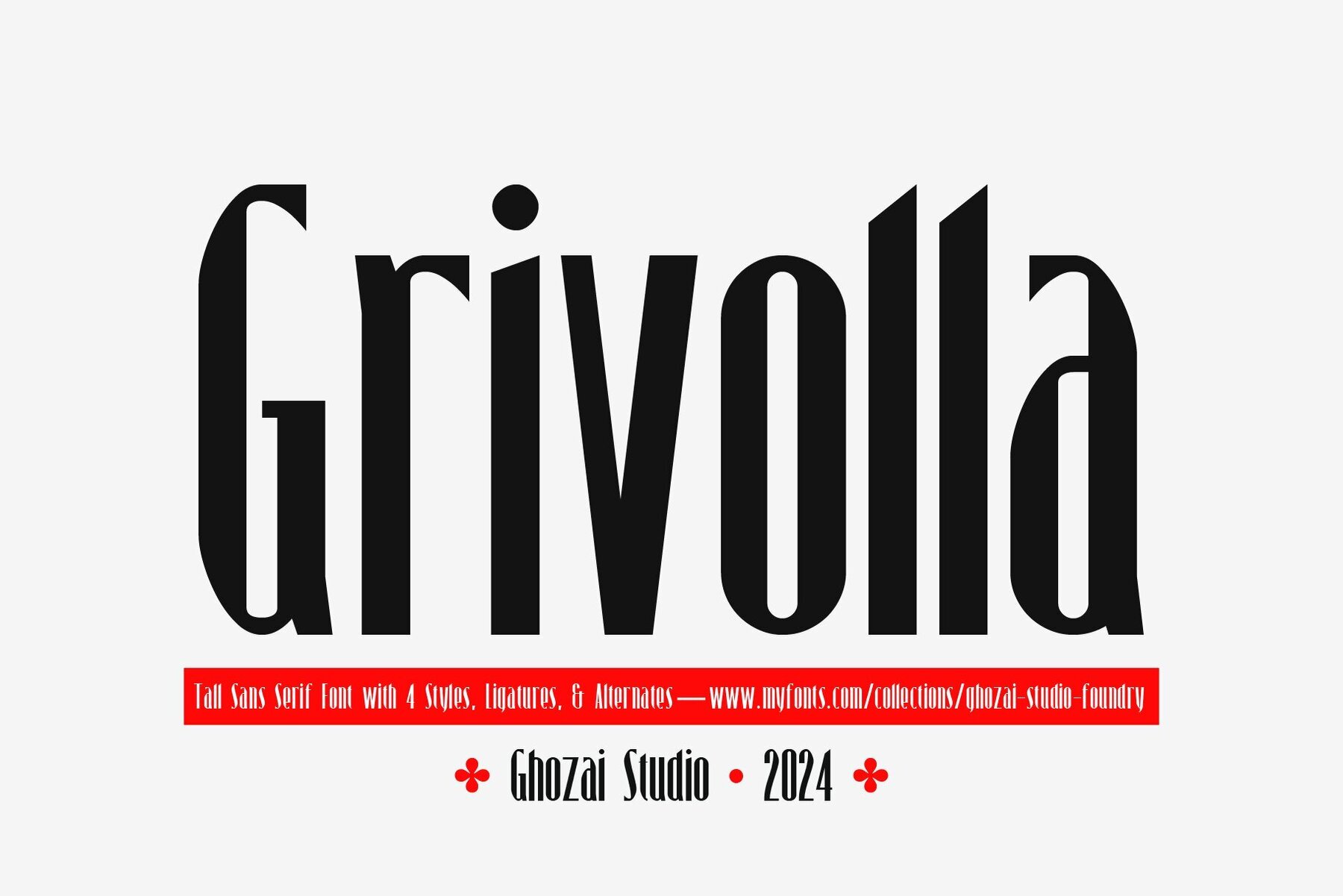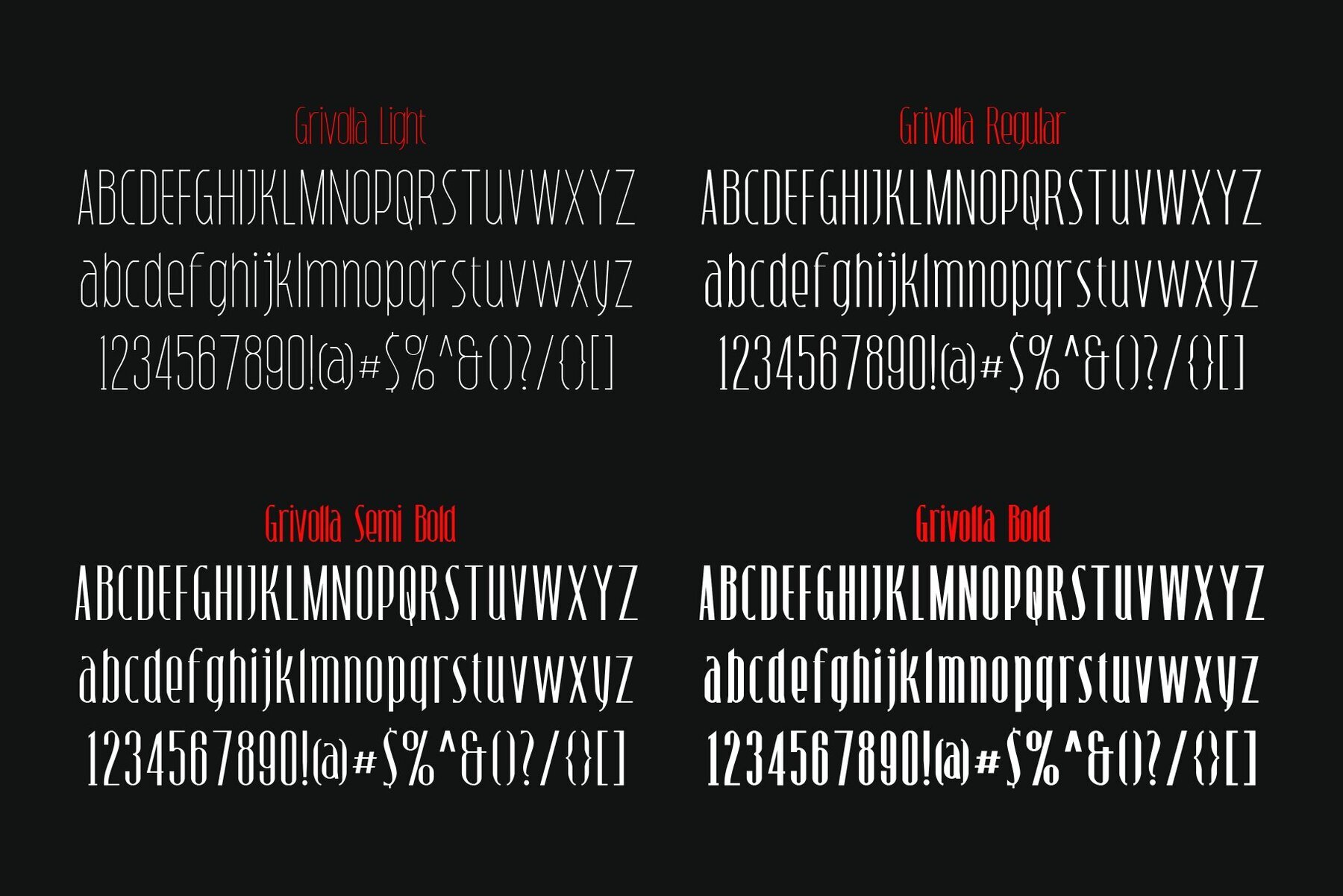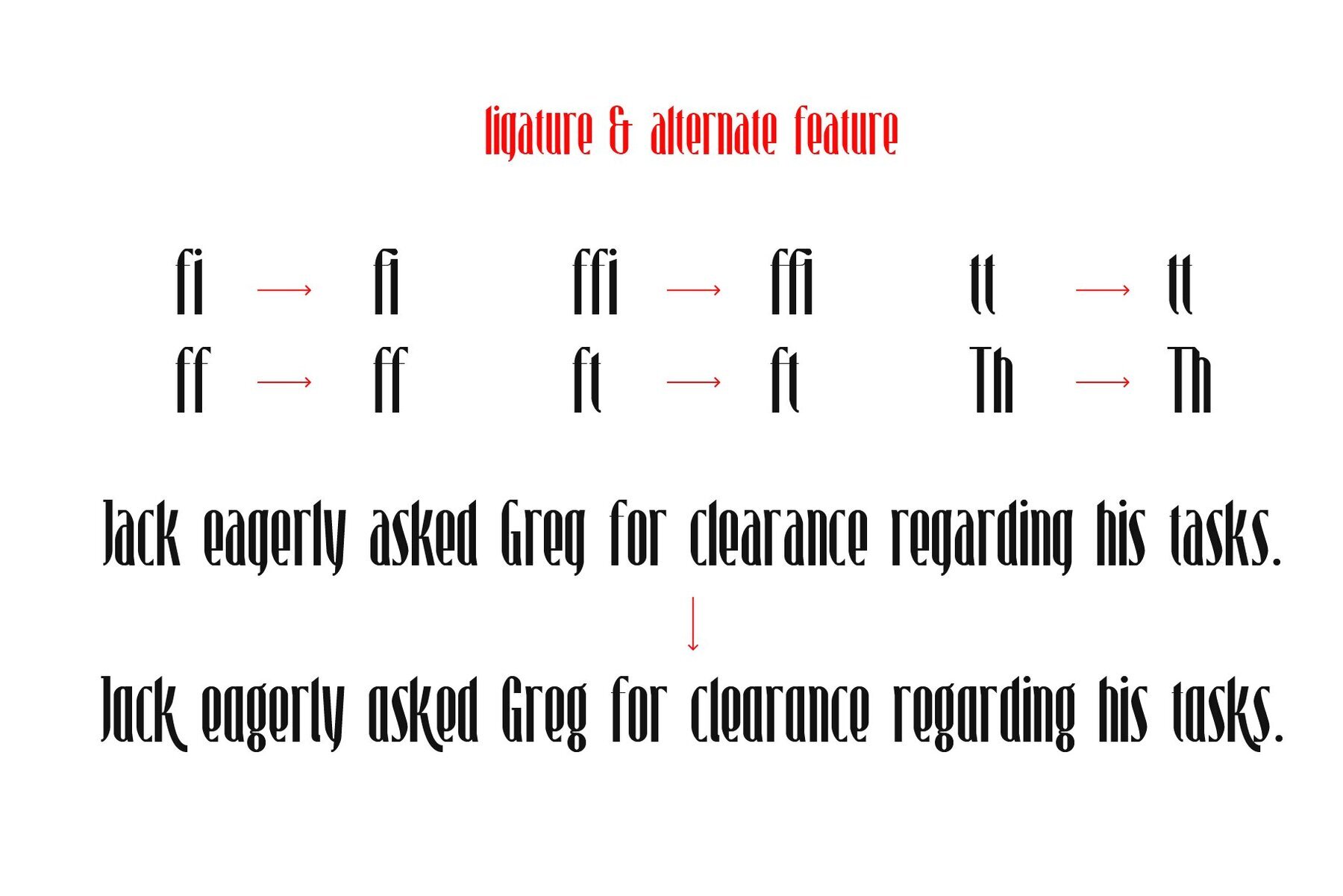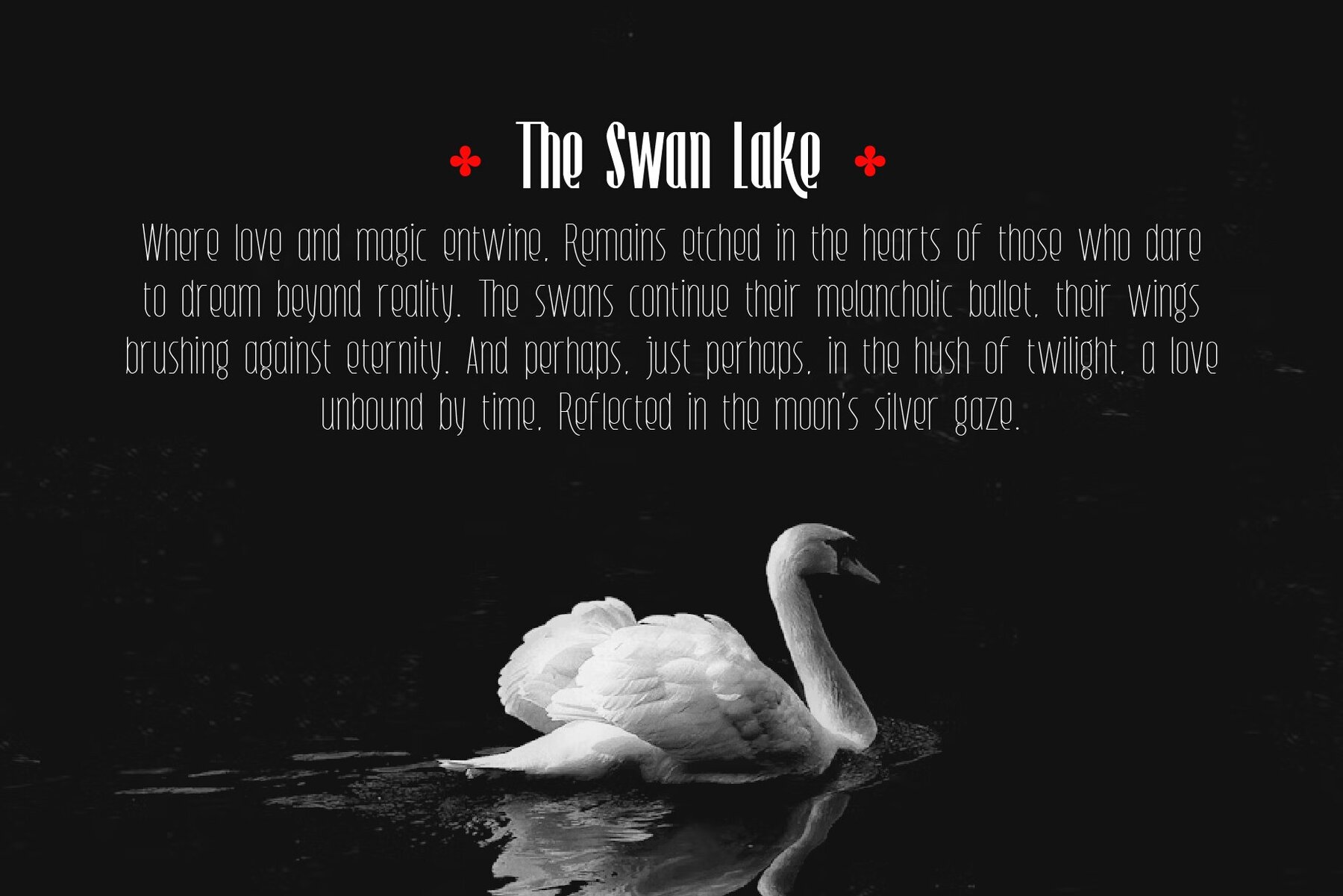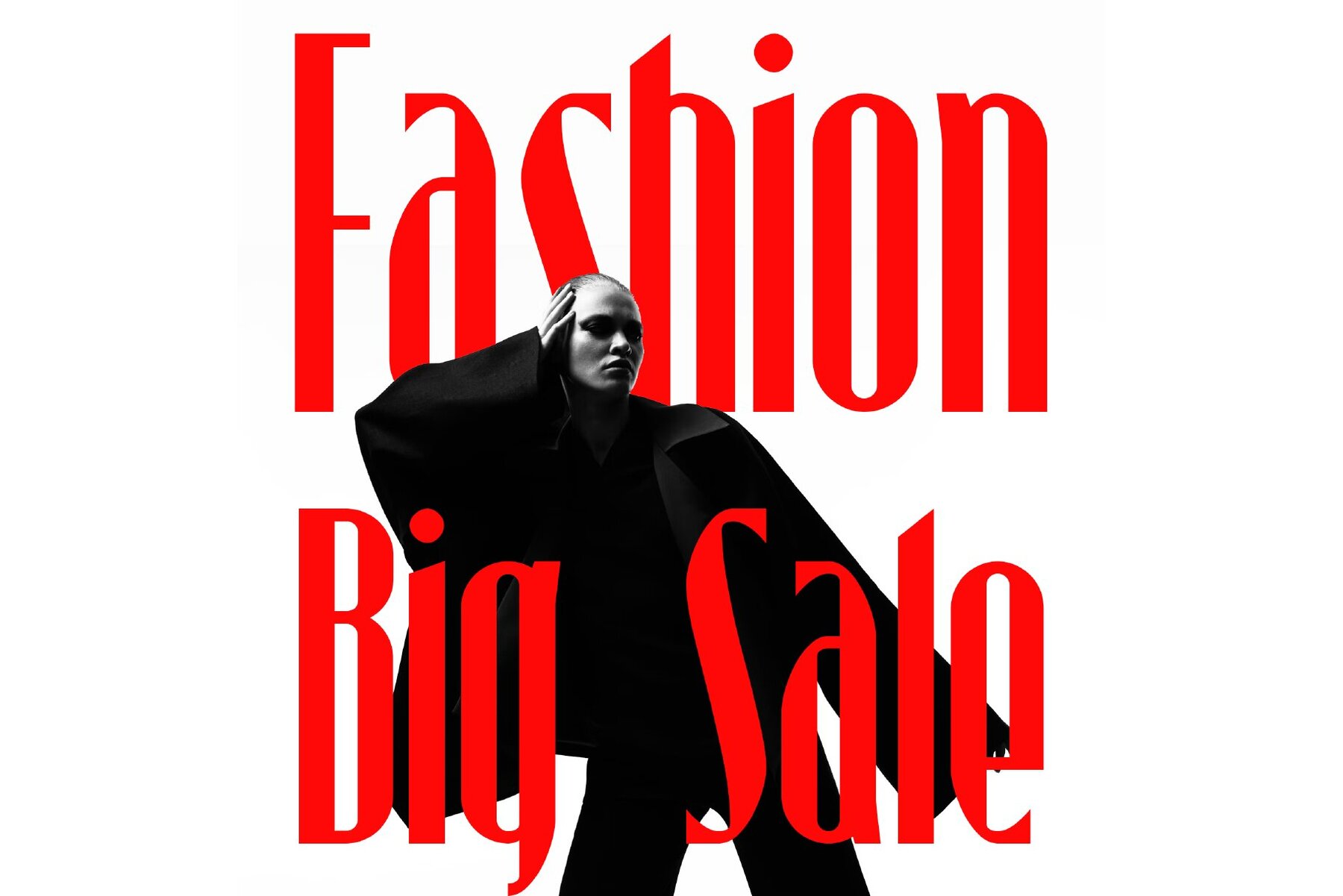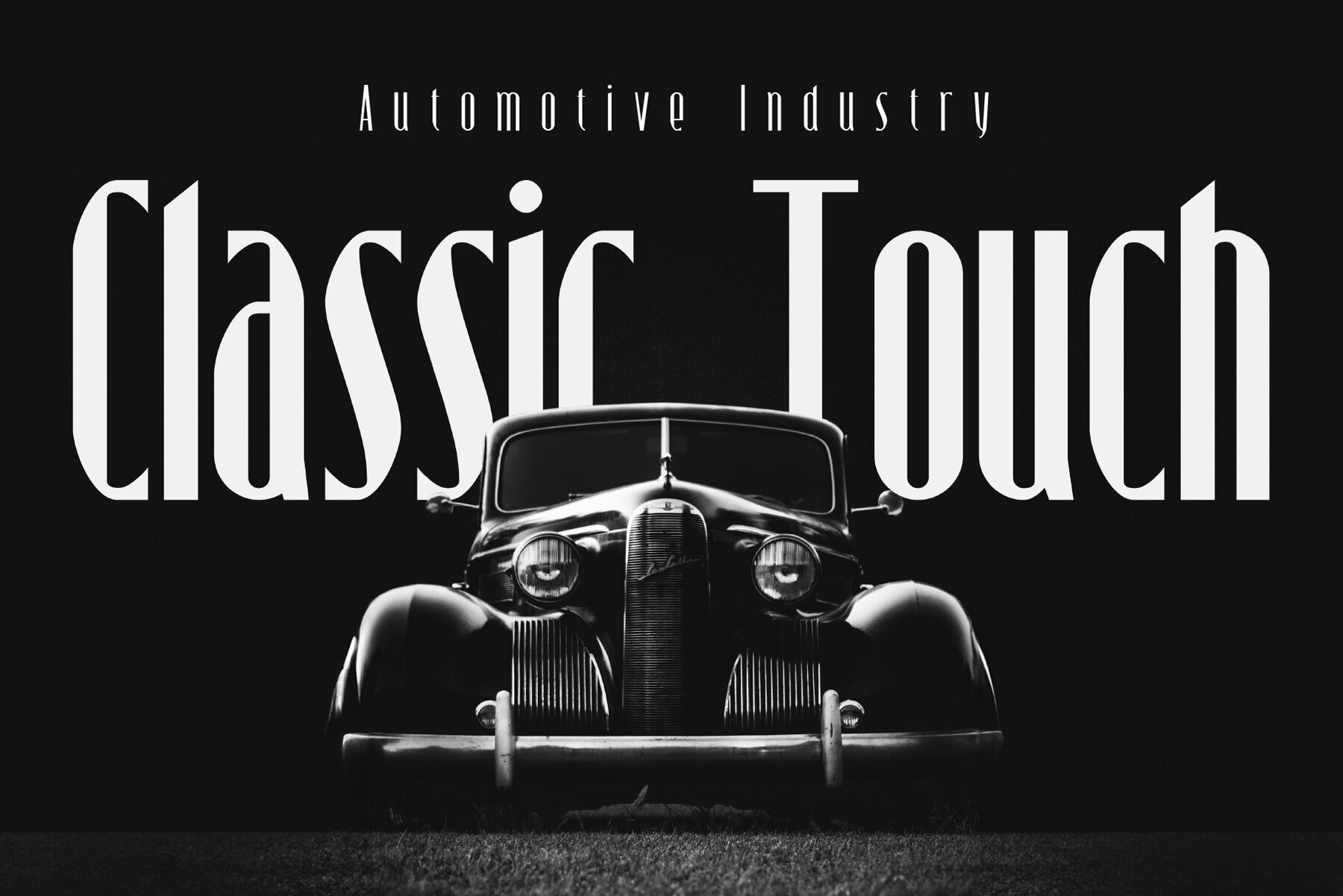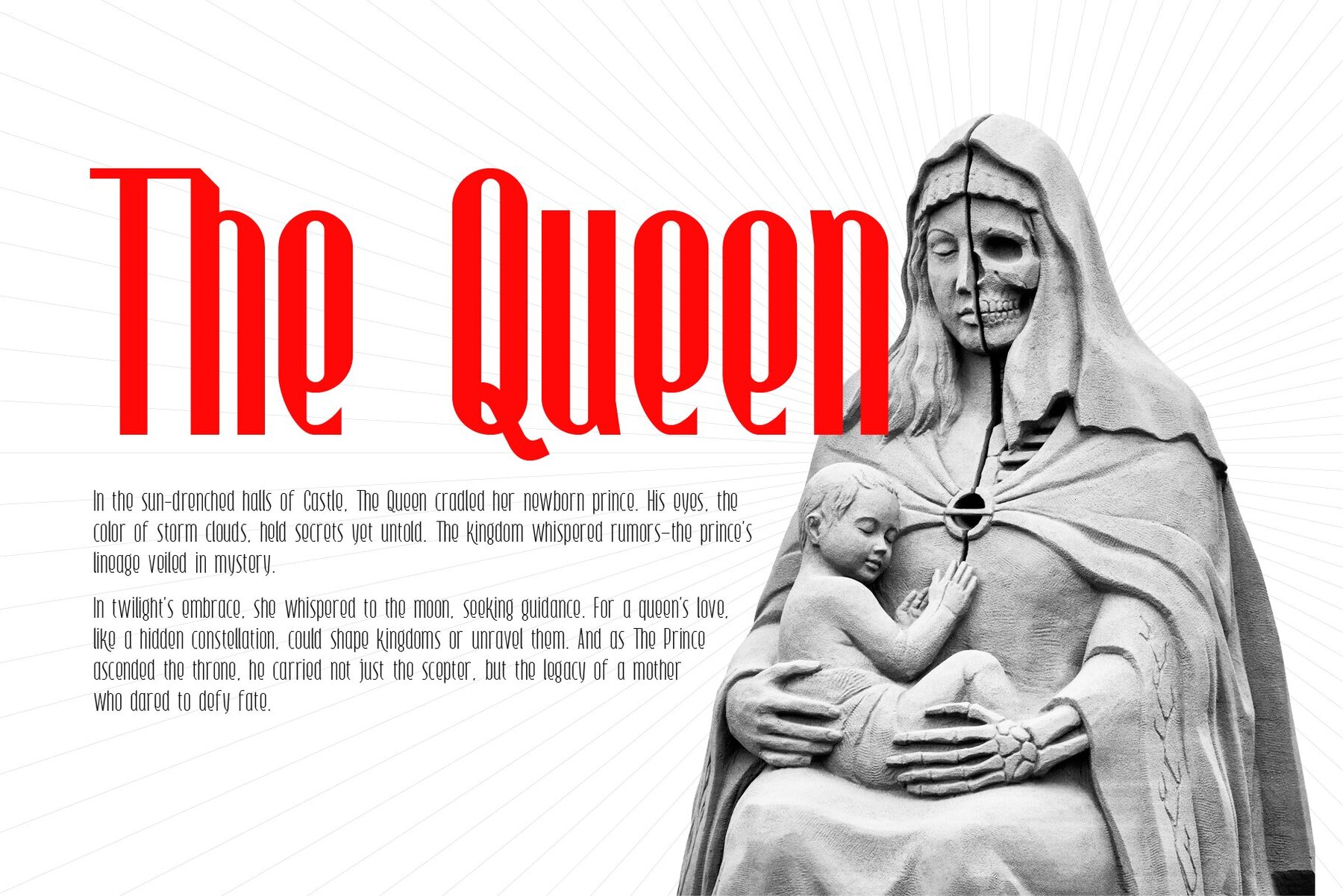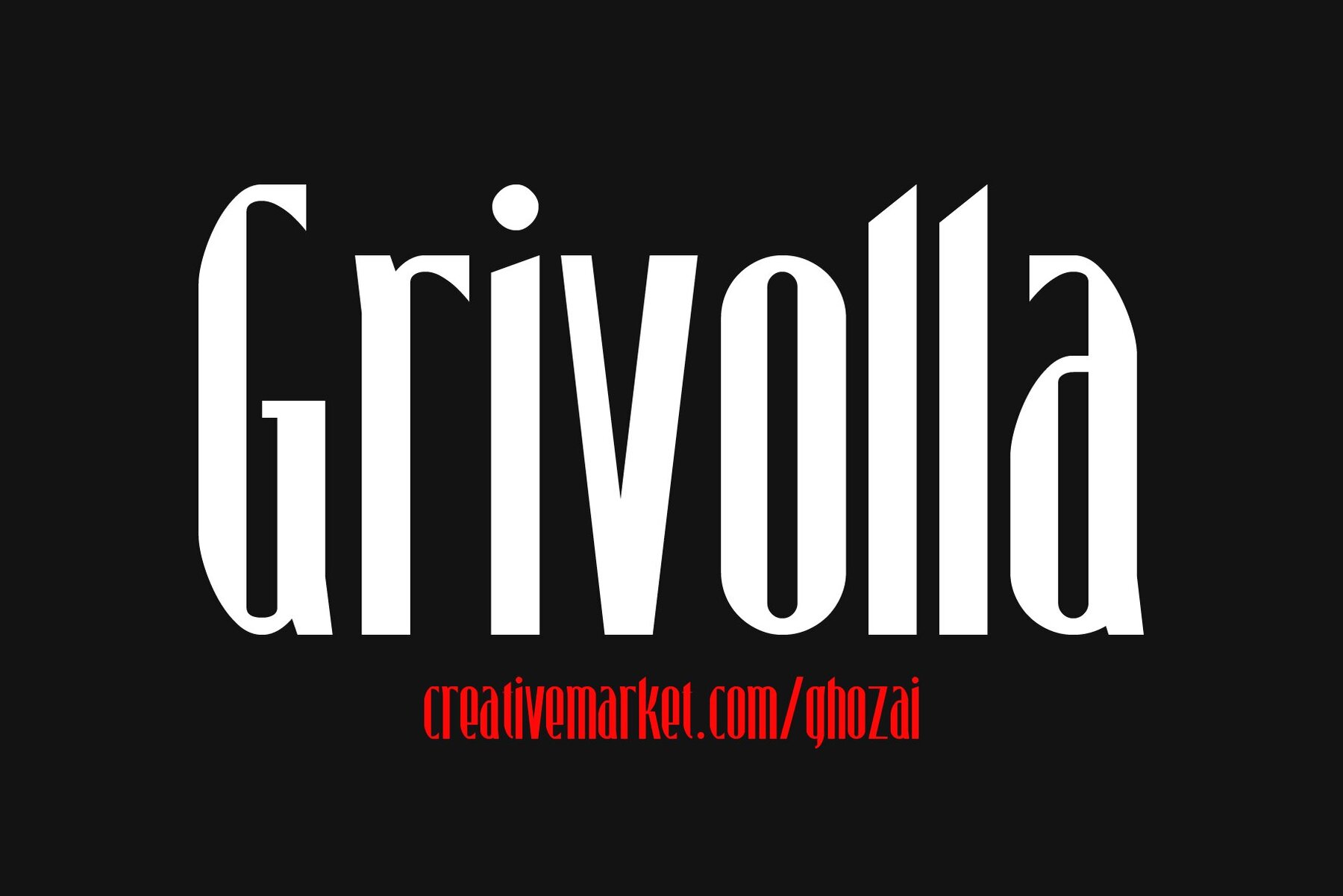
Grivolla Font
Grivolla is a sophisticated sans-serif font that exudes elegance through its tall, slender design. Drawing inspiration from the classic aesthetics of the 1920s and 1930s, it blends traditional charm with modern versatility. Featuring four unique styles, Grivolla comes equipped with ligatures and alternate OpenType features, allowing designers to craft personalized and distinctive visual narratives.
Ideal for a myriad of applications, Grivolla is perfect for headlines, billboards, magazines, websites, and more. Its clean lines and classic appeal make it an excellent choice for titles, posters, branding, and logos. Whether you are working on a contemporary digital project or a traditional print design, Grivolla provides the flexibility and elegance needed to enhance your creative endeavors.